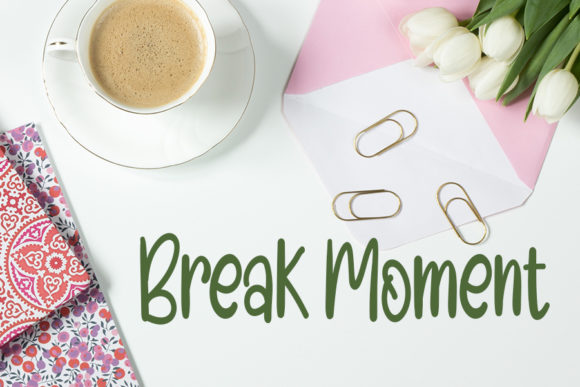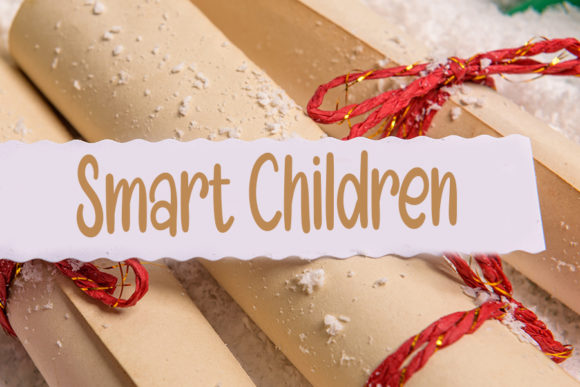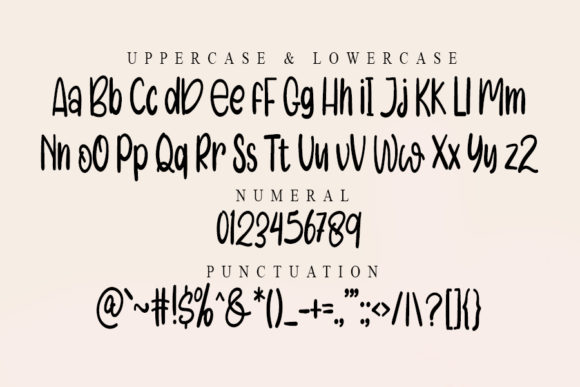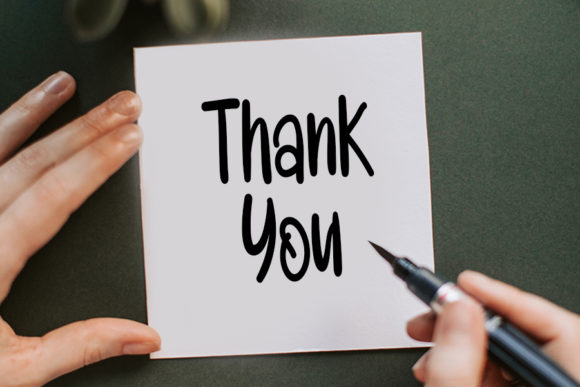
Introduction to Santa and Christmas Font
Santa and Christmas is a friendly, fresh, rich, and elegant handwritten font.
It is ideal for holiday-themed greeting cards and for any crafting project that requires a romantic touch .
Key Features of Santa and Christmas Font